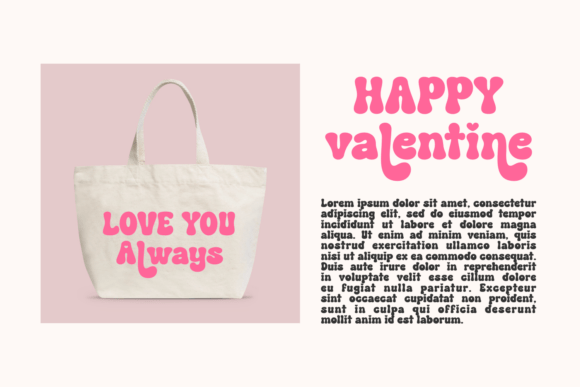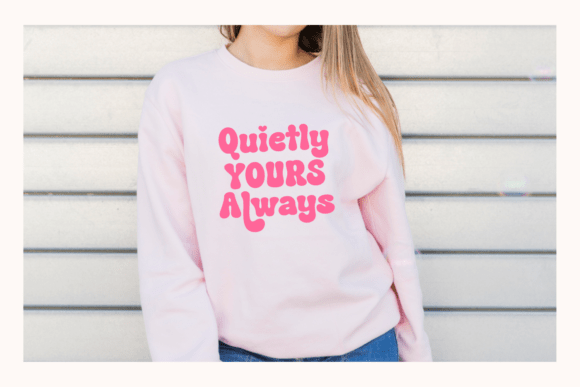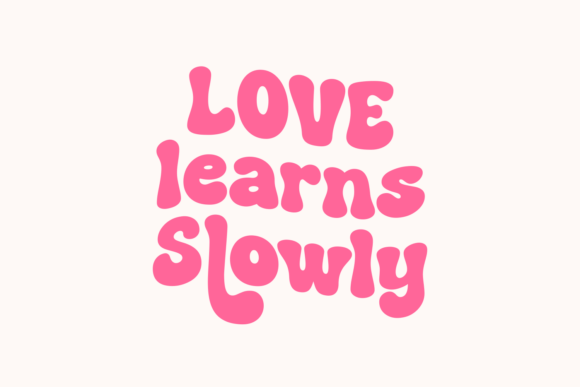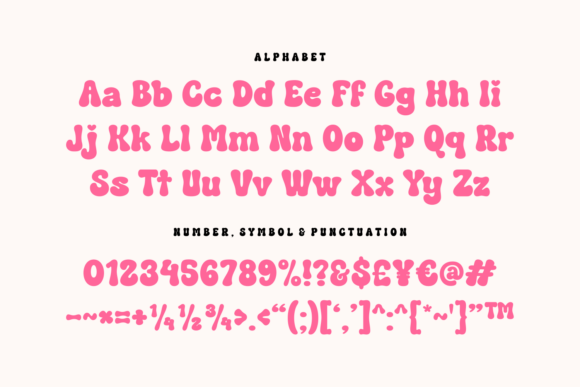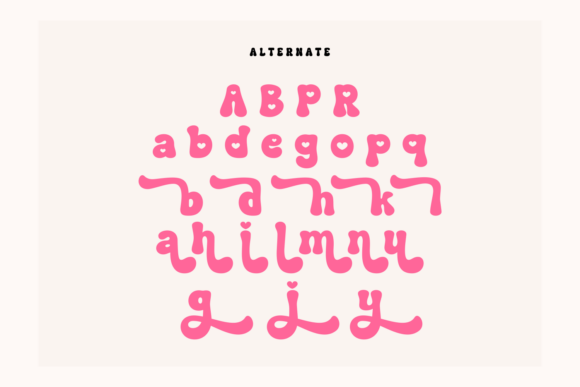
Bring Cuteness to Life with Cuties Angeline Font
Are you looking for a font that embodies the spirit of playfulness and affection? Look no further than Cuties Angeline, a delightful display font that’s sure to make your creative projects stand out. This bubbly and lovable typeface is designed to radiate sweetness, making it perfect for a variety of applications, from Valentine’s Day and nursery designs to children’s apparel and festive party branding.
The Cuties Angeline Typeface
Cuties Angeline features thick, rounded letterforms with a playful “heart-dotted” detail that adds a touch of whimsy to any design. Its bold, “puffy” aesthetic is both high-impact and soft, making it an excellent choice for designs that need to make a statement while maintaining a gentle feel. The font’s rounded edges and heart-dotted details give it a distinctly feminine and affectionate vibe, perfect for projects that require a touch of sweetness.
Perfect for Crafters and Designers
Cuties Angeline is a crafter’s best friend, optimized for clean cuts and vibrant print designs. The font’s bold and rounded letterforms ensure that your designs will stand out, whether you’re creating custom apparel, stickers, or party decorations. Its high-energy personality makes it perfect for designs that need to evoke a sense of childhood wonder and excitement.
Design Applications
Cuties Angeline is an incredibly versatile font that can be used in a wide range of design applications, including:
- Children’s apparel: Create adorable “Mama and Me” shirt designs or custom onesies that are sure to delight.
- Sticker packs: Add a touch of whimsy to your sticker designs with Cuties Angeline’s playful letterforms.
- Festive party branding: Create eye-catching party decorations, invitations, and branding that will make your event stand out.
- Custom birthday mugs: Design personalized mugs that are perfect for birthday celebrations or special occasions.
- Family-themed blogs: Use Cuties Angeline as a fun header for your family-themed blog or website.
Pairing Suggestions
Cuties Angeline pairs wonderfully with a variety of design elements, including:
- Pastel color palettes: Soft pink, baby blue, and mint green are just a few of the many pastel colors that complement Cuties Angeline perfectly.
- Glitter textures: Add a touch of sparkle to your designs with glitter textures that match the playful personality of Cuties Angeline.
- Adorable animal illustrations: Pair Cuties Angeline with cute animal illustrations to create designs that are both fun and endearing.
Why Choose Cuties Angeline?
There are many reasons why Cuties Angeline is an excellent choice for designers and crafters, including:
- Unique personality: Cuties Angeline has a distinctive personality that’s both playful and affectionate.
- High-impact design: The font’s bold and rounded letterforms ensure that your designs will stand out.
- Versatility: Cuties Angeline can be used in a wide range of design applications, from children’s apparel to party branding.
- Easy to read: Despite its playful personality, Cuties Angeline is easy to read, making it perfect for designs that require a clear and concise message.
In conclusion, Cuties Angeline is a delightful display font that’s sure to bring a touch of cuteness to your creative projects. Its playful personality, bold aesthetic, and versatility make it an excellent choice for designers and crafters who need a font that embodies the spirit of childhood wonder and affection. Whether you’re creating children’s apparel, party decorations, or custom stickers, Cuties Angeline is the perfect choice for any design project that requires a touch of whimsy and sweetness.